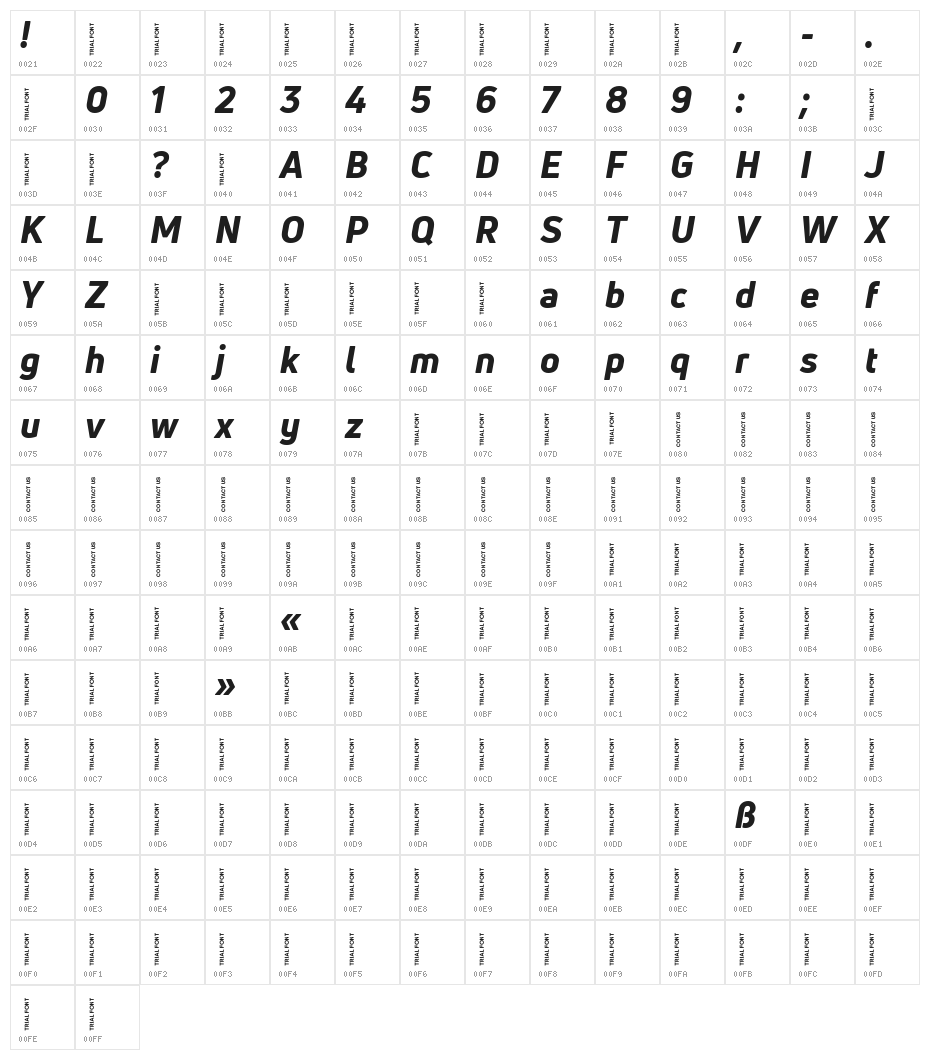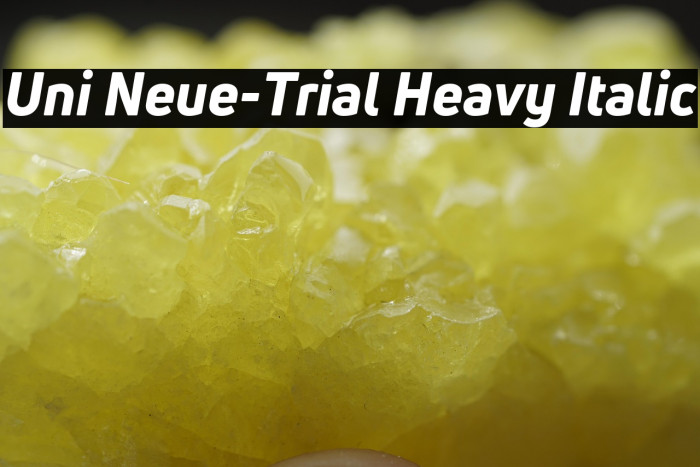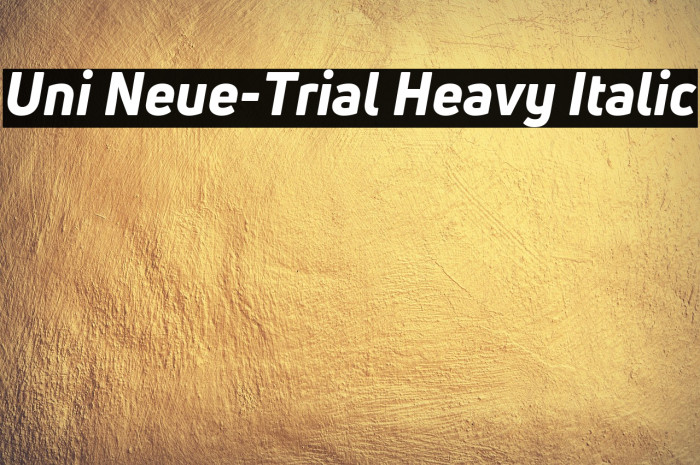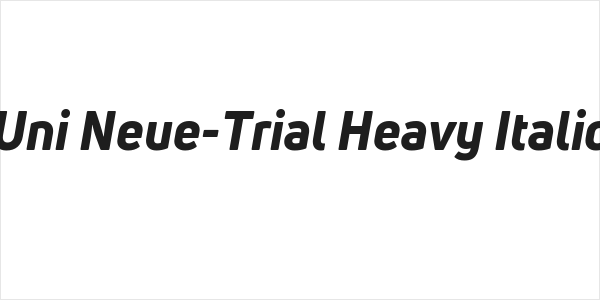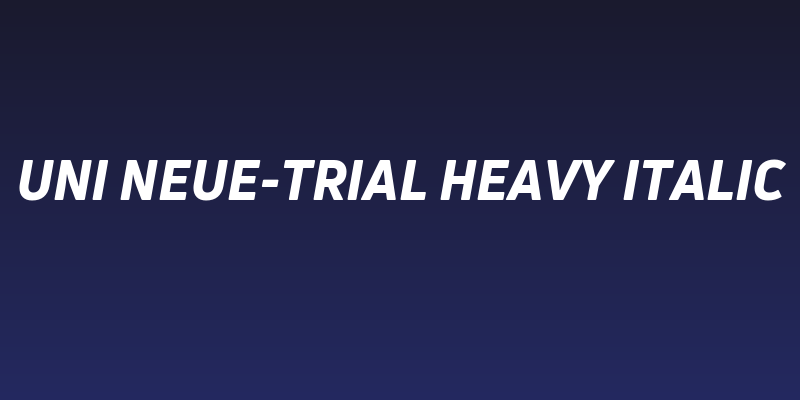
Uni Neue-Trial Heavy Italic Font
Uni Neue-Trial Heavy Italic Description
This font features a bold and dynamic design with a strong italic slant, giving it a sense of movement and energy. The characters are well-defined with a modern sans-serif style, making it suitable for contemporary designs. The strokes are thick and consistent, providing a heavy appearance that commands attention. The overall look is clean and professional, with a slight forward tilt that adds a touch of sophistication. The numerals and special characters are equally bold, ensuring uniformity across all text elements.
| Proposed Projects | Ideal for branding, advertising, headlines, and digital media projects where a strong and modern presence is desired. |